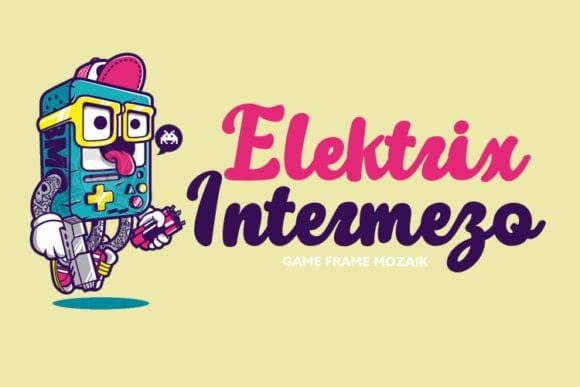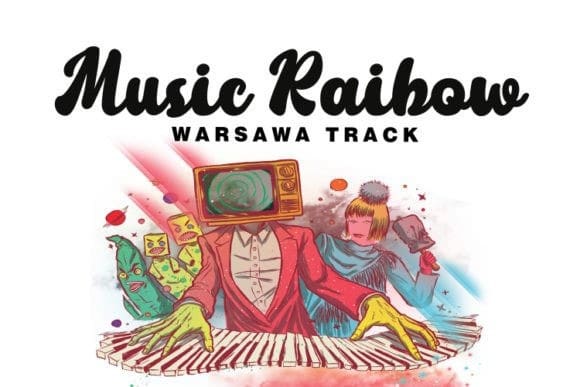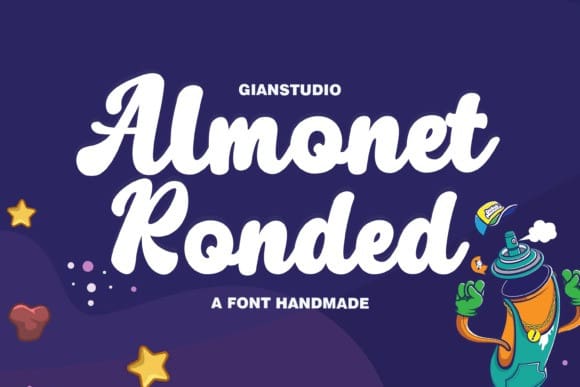
Almonet Ronded Font
Almonet Ronded Font is a thick-lettered handwritten font masterfully crafted to become a true favorite. Contemporary and fresh, it is perfect for any design you wish to create. Add it to your creative projects and make them outstanding!